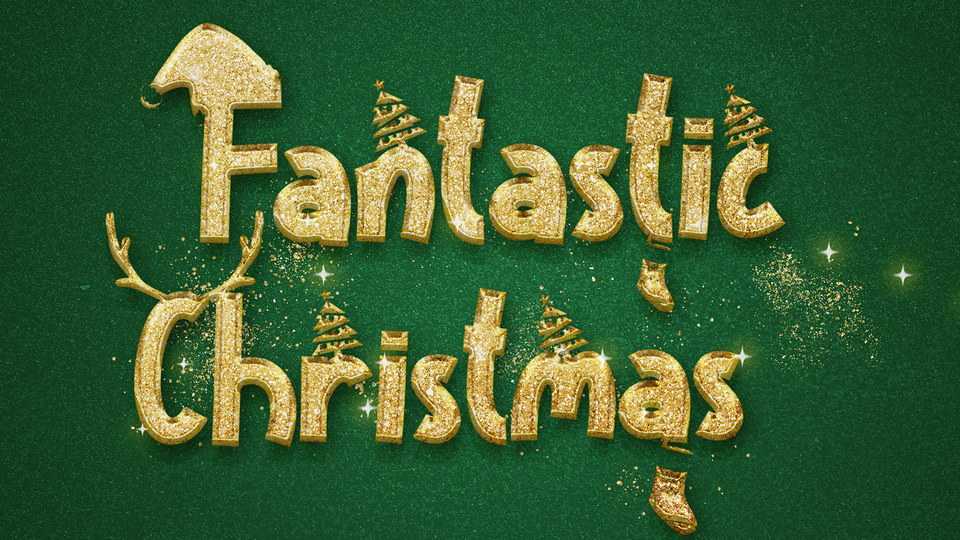
Download Fantastic Christmas font, a very elegant Christmas themed typeface. This font is very unique with its embellished Christmas hat, Christmas tree, and reindeer antlers.